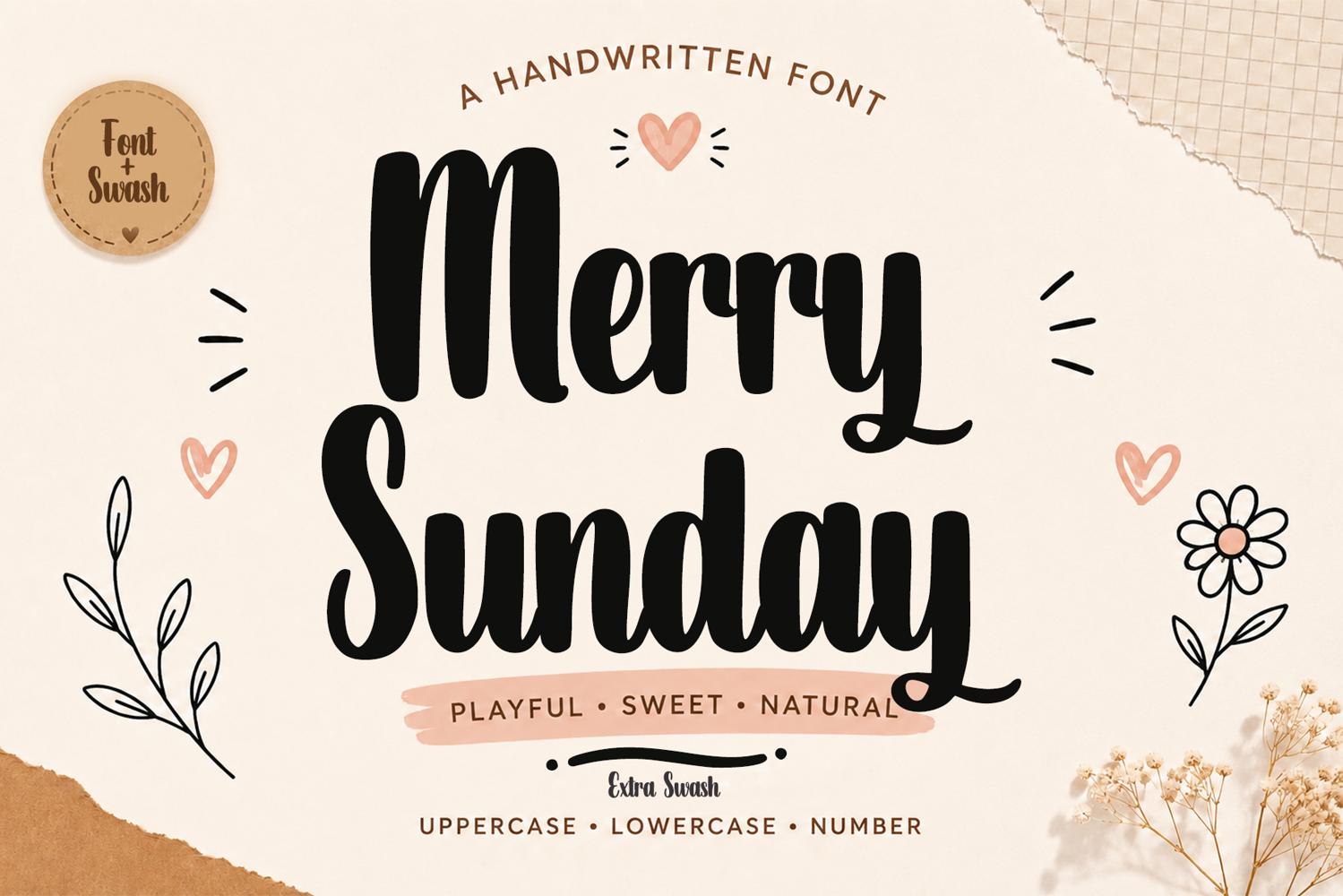
Merry Sunday
Introducing Merry Sunday, a charming handwritten font with a playful and cheerful personality. Featuring bold, fluid letterforms, smooth curves, rounded shapes, and an authentic brush-stroke feel, Merry Sunday brings a warm and joyful touch to every design. Its natural handwritten rhythm creates a fun and friendly look while remaining versatile and easy to use.
Merry Sunday also includes extra swashes to add more character and decorative flair to your lettering. Perfect for T-shirts and apparel, greeting cards, invitations, logos, quotes, posters, packaging, stickers, social media designs, branding, and a variety of creative crafting projects. Add a little happiness and handmade charm to your designs with Merry Sunday.